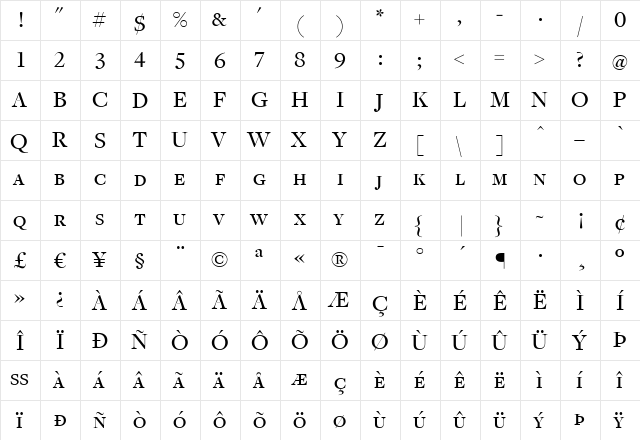
FreightDispMediumSC Regular Font Preview
FreightDispMediumSC Regular
FreightDispMediumSC Regular Font Details
| Foundry | Joshua Darden & Phil's Fonts, Inc |
| Designer | Joshua Darden |
Design Context for FreightDispMediumSC Typeface
FreightDispMediumSC takes a measured approach to typography — its balanced proportions and neutral character make it a reliable workhorse for both digital and print work.